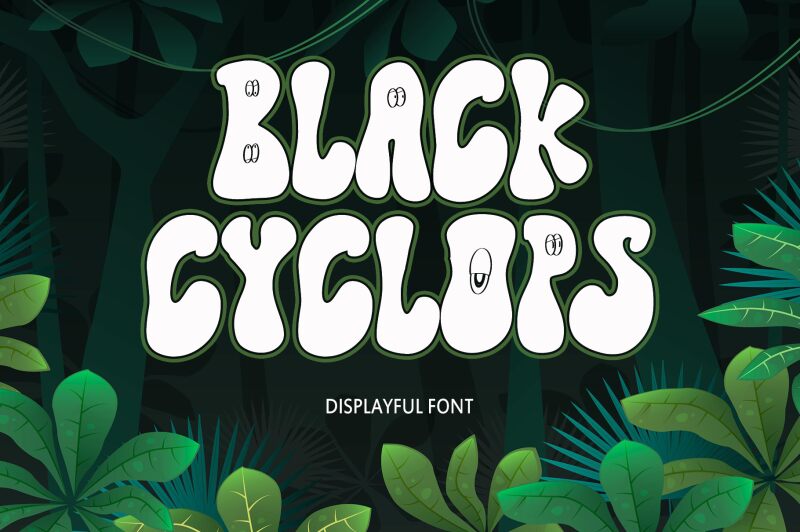
Black Cyclops font is a display typeface designed by Annisa Afni. Built on groovy foundations, the font is a stylish and cool choice for today’s generations with modern and retro-inspired influences at the same time. With boldness at its center, Black Cyclops showcases an organic structure that looks condensed with some decorative shapes here and there.
Freely practice it in logos, headlines, branding titles, or on posters, flyers, brochures. Use it digitally in websites or mobile apps sections as you explore interesting product packagings designs where this one will appear nicely. Invitations of different sorts can also benefit from using Black Cyclops in them.